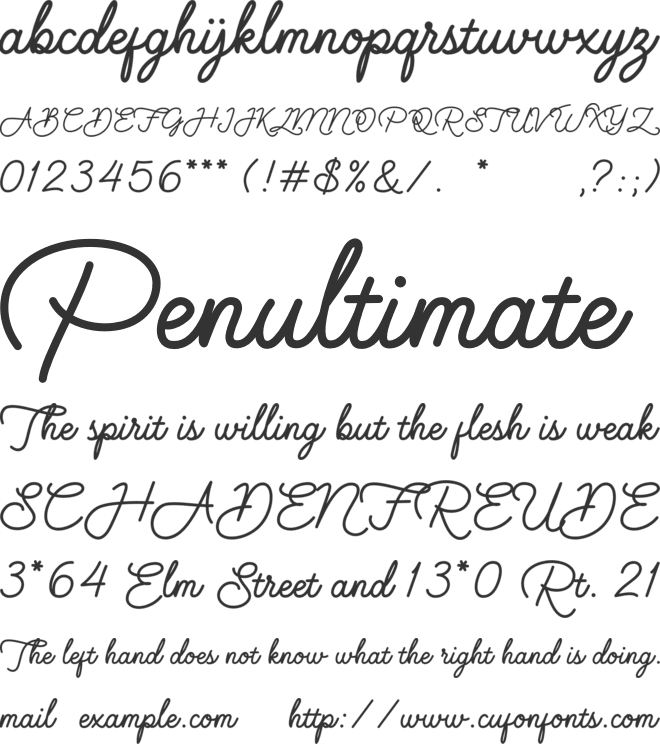
Hapsha Sophia Script Font
Hapsha Sophia Script exudes sophistication with its monoline design, offering a plethora of alternate characters and graceful swashes, perfect for adding artistic flair to any project.